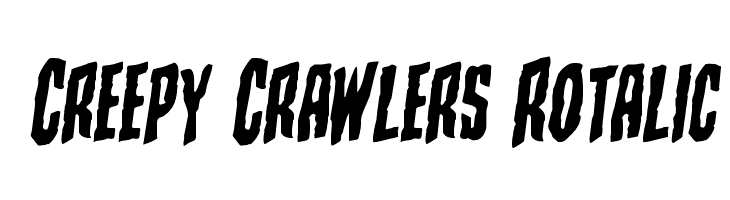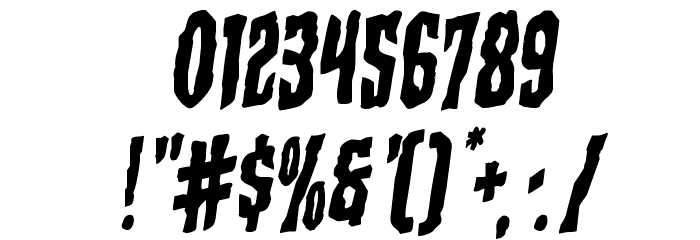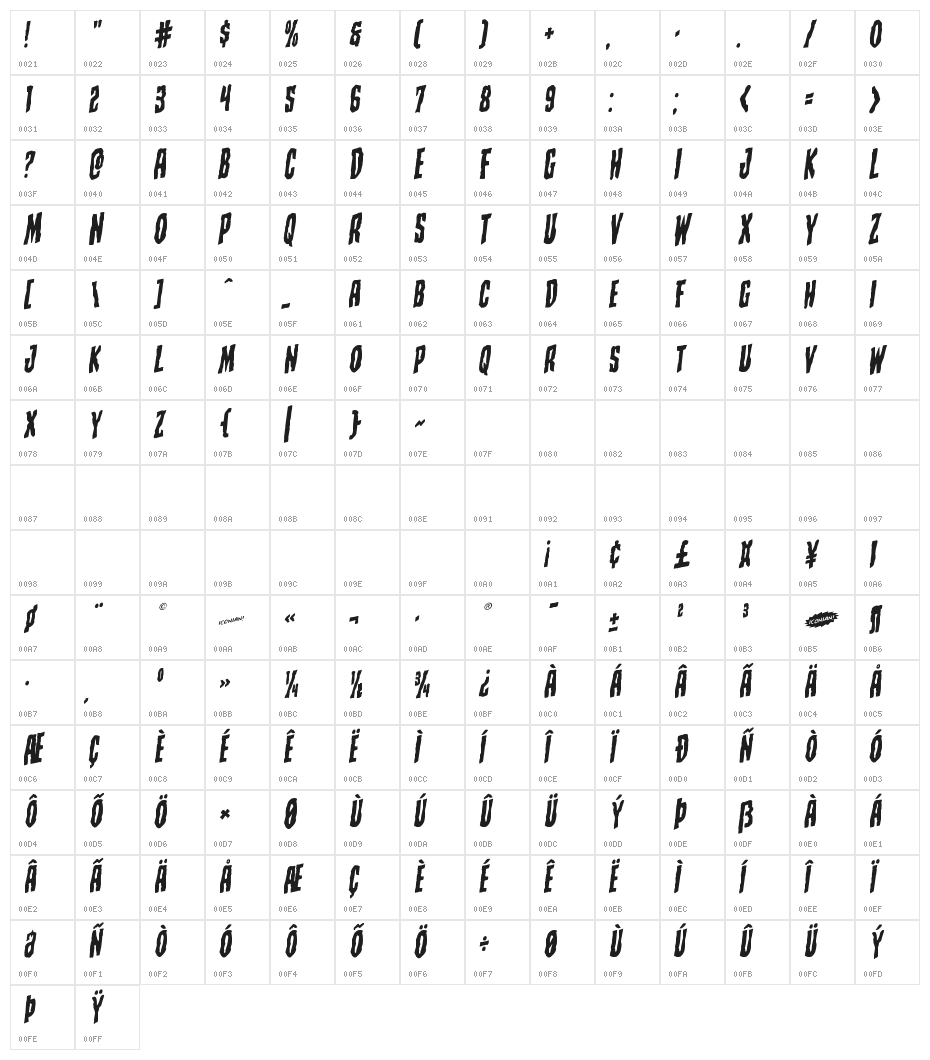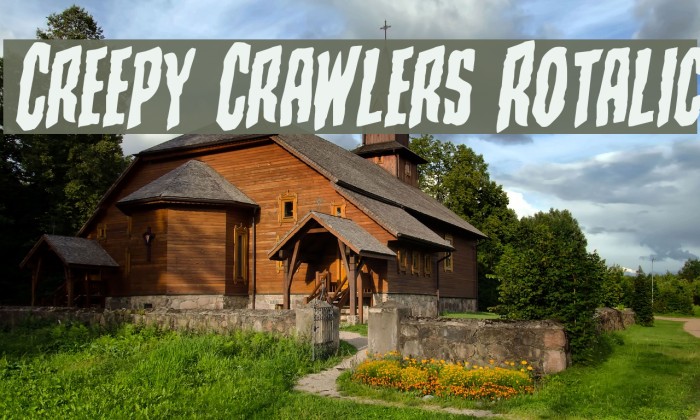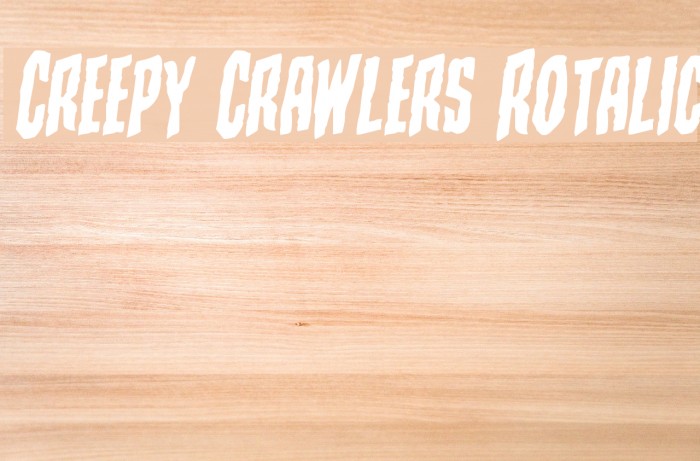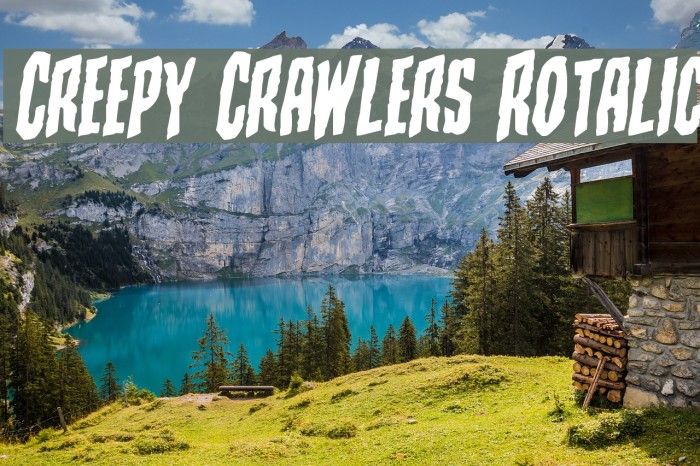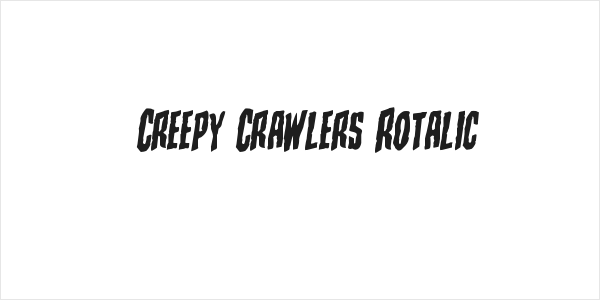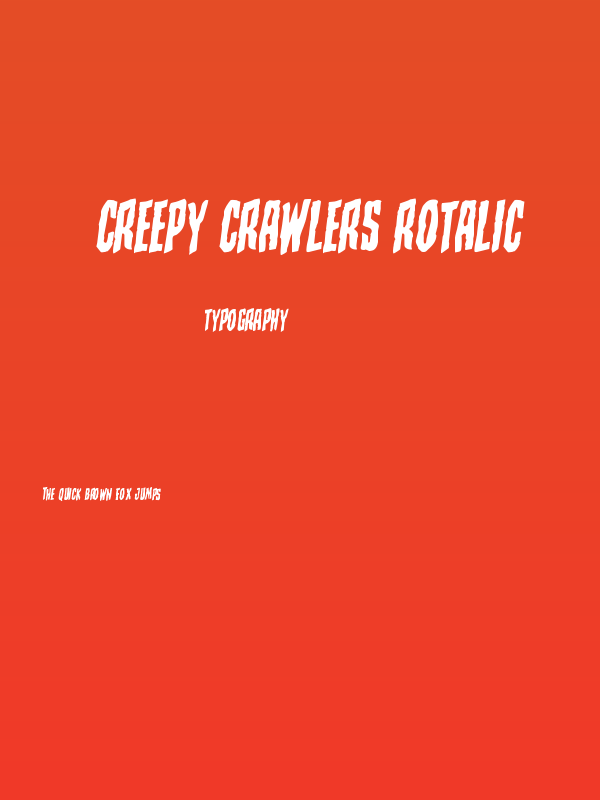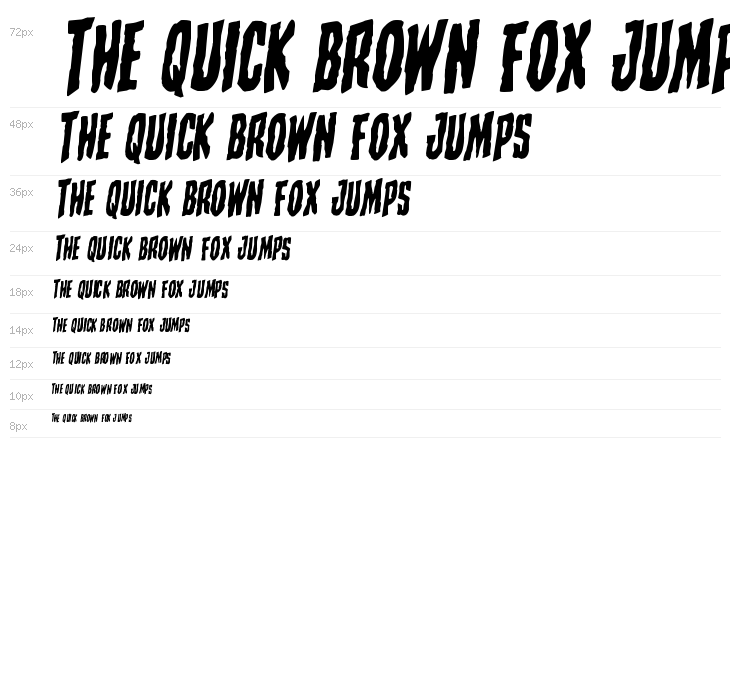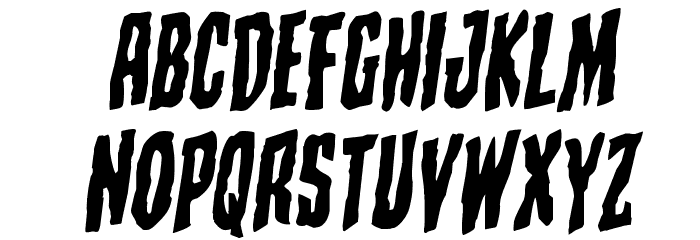
Creepy Crawlers Rotalic Font
Creepy Crawlers Rotalic Description
This font features a bold and dynamic style with a slightly slanted, italicized appearance. The characters are jagged and irregular, giving off a spooky and eerie vibe, reminiscent of horror themes. The uppercase and lowercase letters maintain a consistent style, with sharp edges and uneven strokes that add to the unsettling aesthetic. Numbers and special characters follow the same design, ensuring a cohesive look across all elements. The font's unique and dramatic appearance makes it stand out, perfect for projects that require a touch of the macabre or a Halloween theme.
| Proposed Projects | Ideal for Halloween-themed designs, horror movie posters, spooky event invitations, and haunted house branding. |